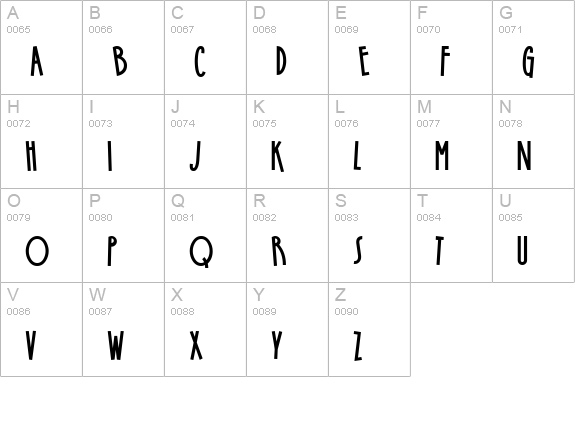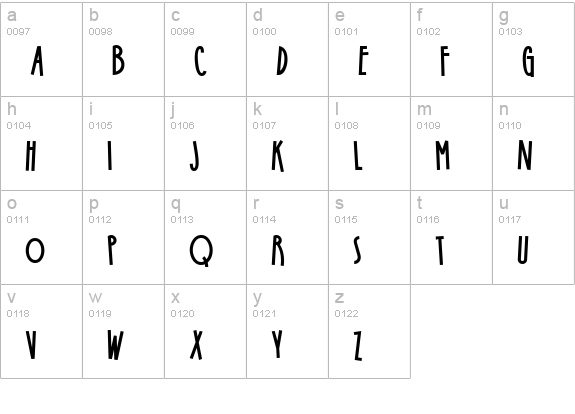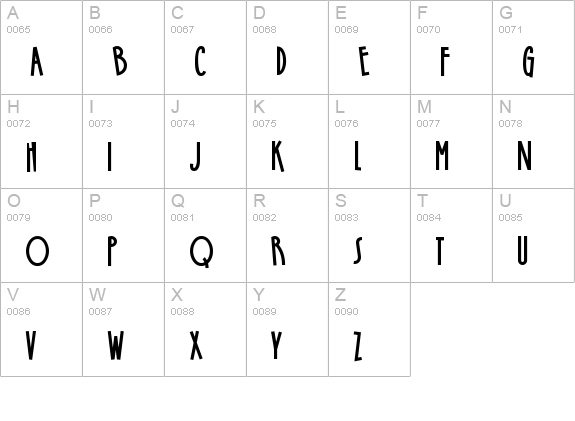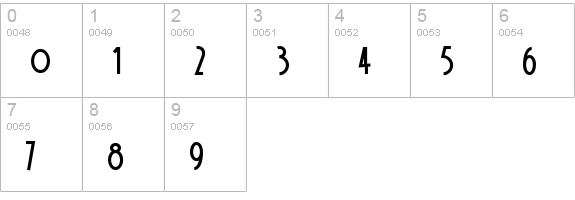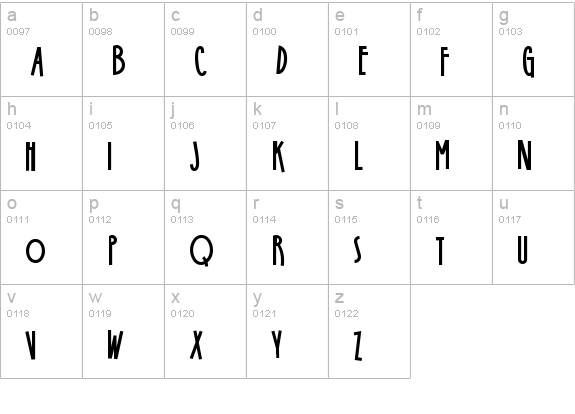
StoneSoupNF Font Details
StoneSoupNF font is a beautifully crafted typeface that exudes elegance and charm. With its unique blend of classic and modern elements, this font is perfect for adding a touch of sophistication to any project. The smooth curves and sharp edges of StoneSoupNF font make it stand out, while still maintaining a sense of timelessness. What's even better is that StoneSoupNF font is available for free download at FontsMarket.com. This means you can easily access this stunning font and use it in your designs without any cost. Whether you're working on a branding project, creating invitations, or designing a website, StoneSoupNF font is sure to elevate your work and leave a lasting impression. Download it now and let your creativity shine with this exceptional typeface.